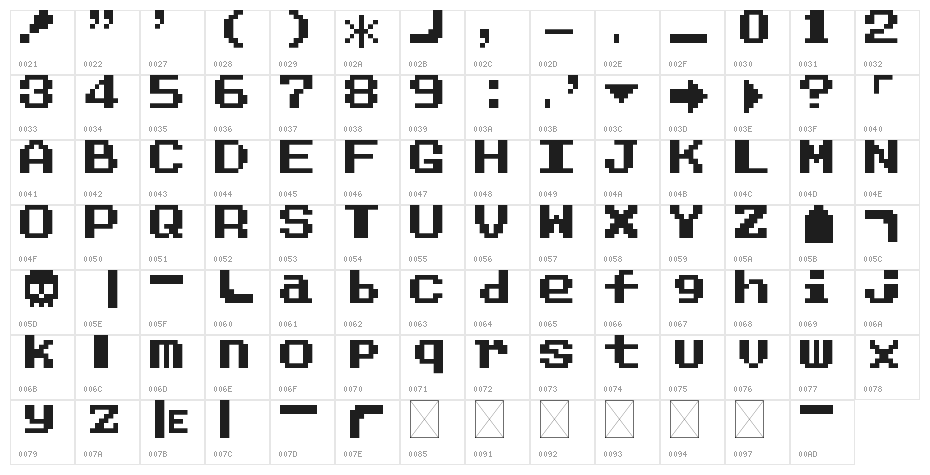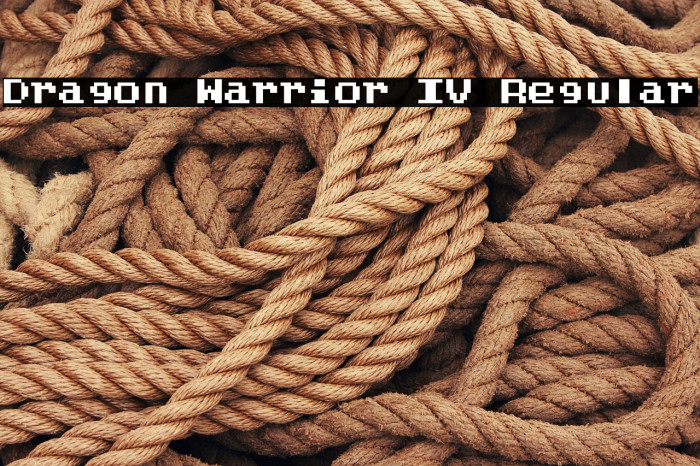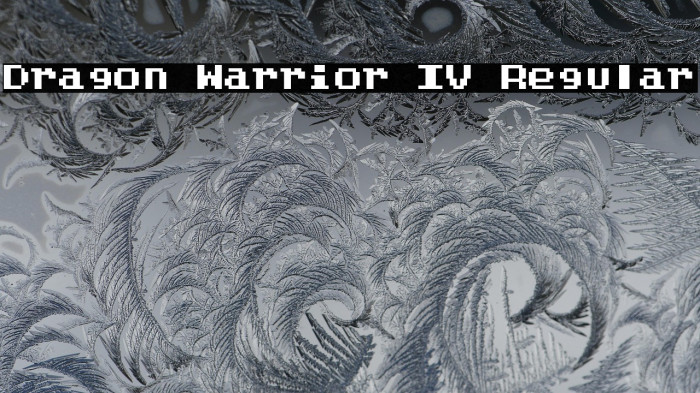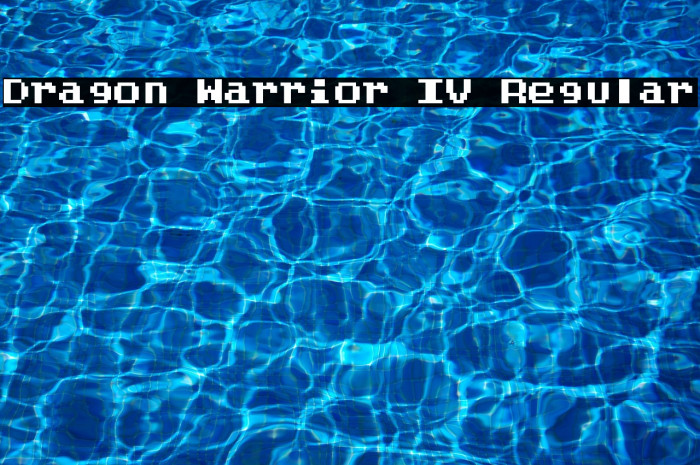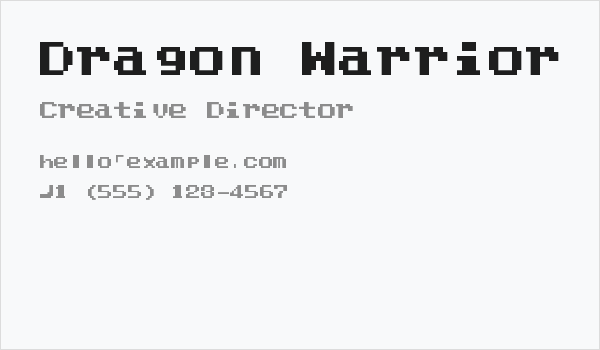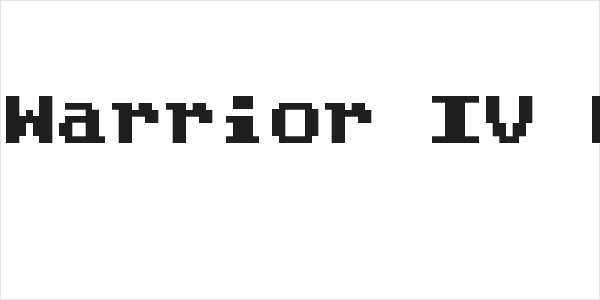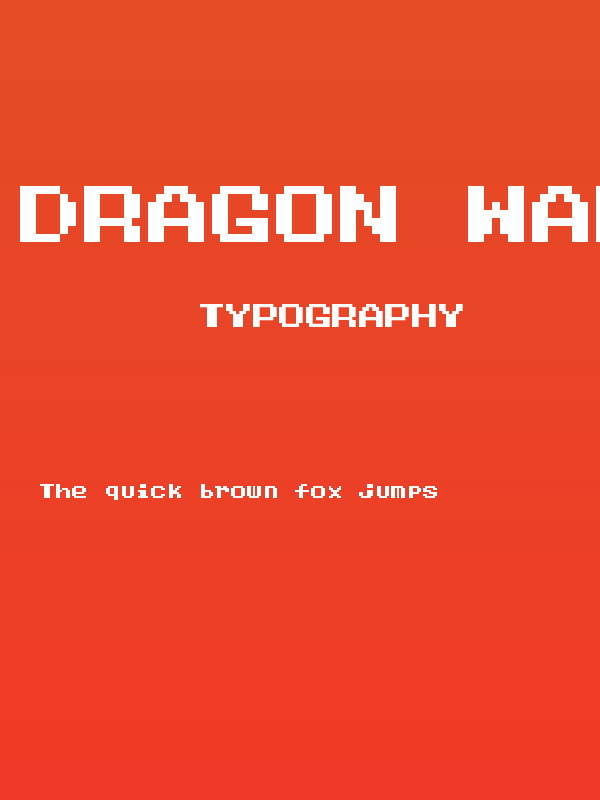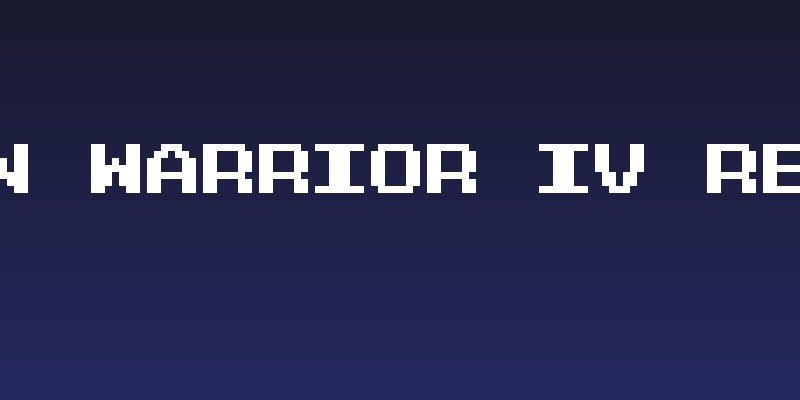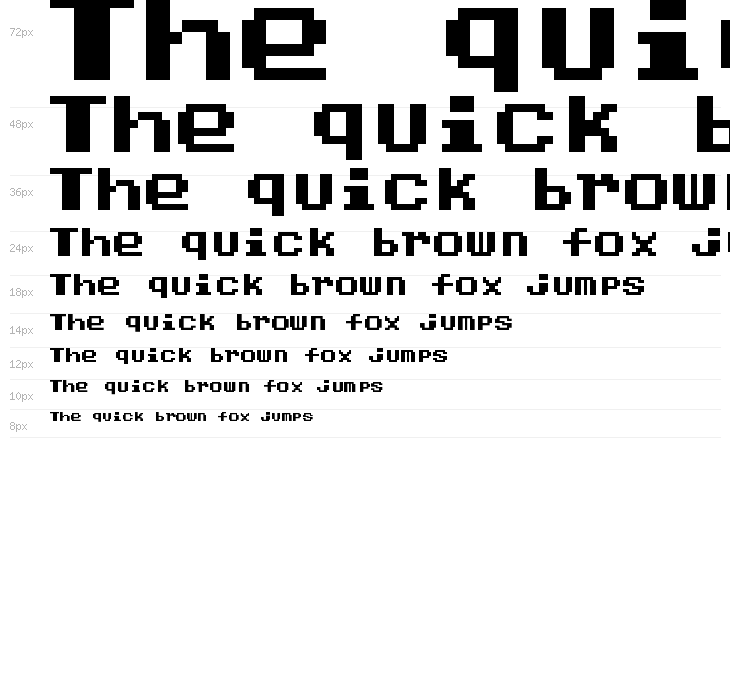
Dragon Warrior IV Regular Font
Dragon Warrior IV Regular Description
This font features a bold, pixelated design reminiscent of classic video game typography. Each character is constructed with a blocky, grid-like appearance, giving it a retro, digital feel. The uppercase and lowercase letters maintain a consistent width, contributing to a monospaced look. The numerals and special characters follow the same pixelated style, ensuring uniformity across all glyphs. The font's distinct style is ideal for projects that aim to evoke nostalgia or a vintage gaming aesthetic.
| Use Case | Logos, Headlines, Digital Art |
| Proposed Projects | Ideal for retro video game designs, digital art projects, and nostalgic branding. |